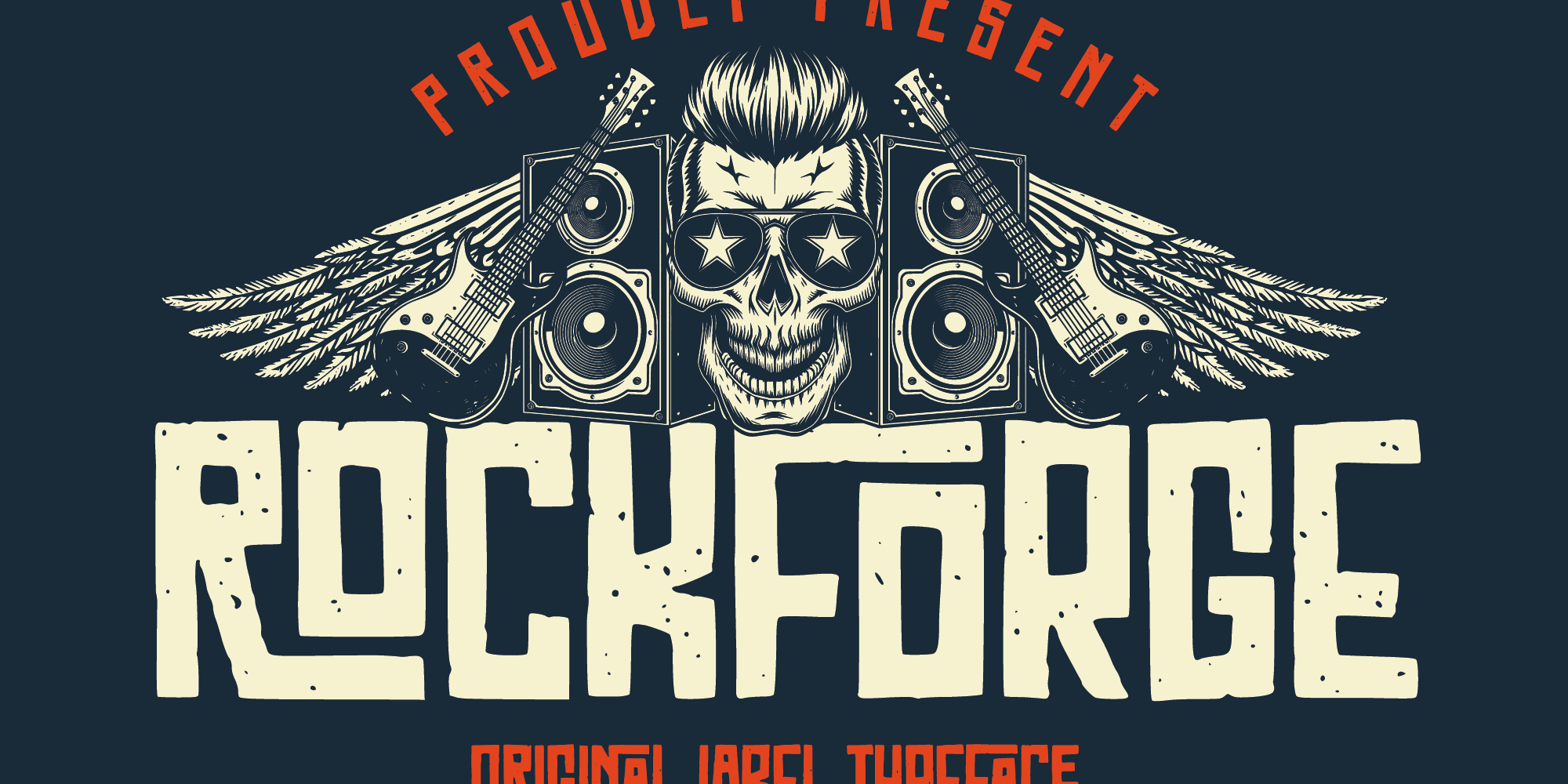
Rockforge Font Free Download is a bold and rugged display typeface designed to convey strength, durability, and a handcrafted spirit. With its sharp edges and sturdy construction, it is ideal for logos, branding, posters, apparel design, packaging, and promotional materials that require a powerful and industrial aesthetic.
The font’s strong presence and excellent readability make it particularly effective for bold headlines and impactful visual statements. Rockforge brings an authentic, gritty character to both print and digital projects, making it perfect for designs that aim to evoke resilience, toughness, and craftsmanship.
Rockforge is an essential addition to any designer’s toolkit, offering a striking and resilient style for projects that demand boldness and authenticity.